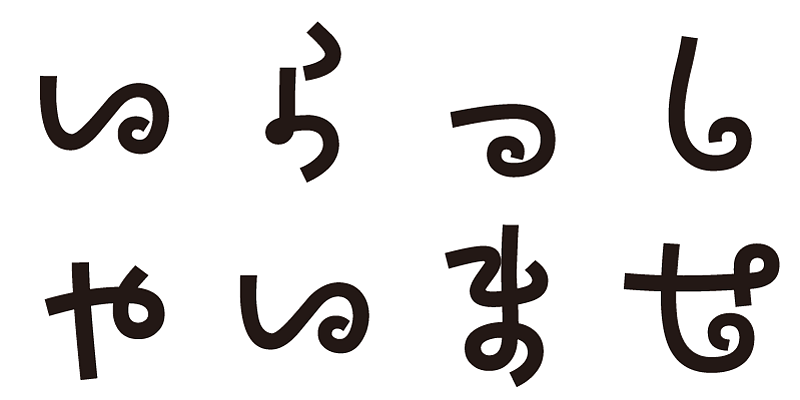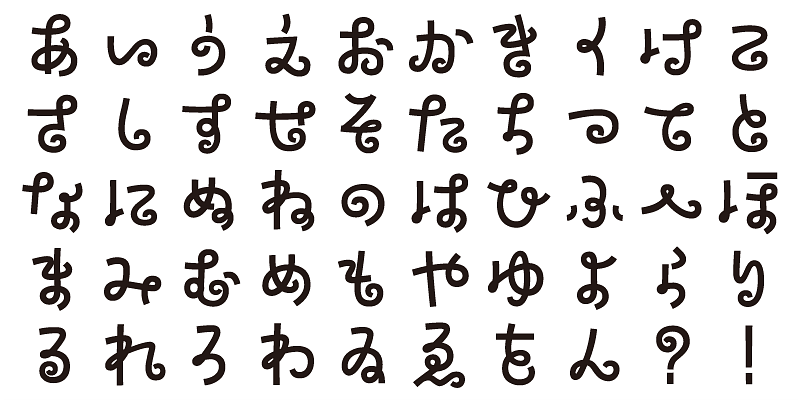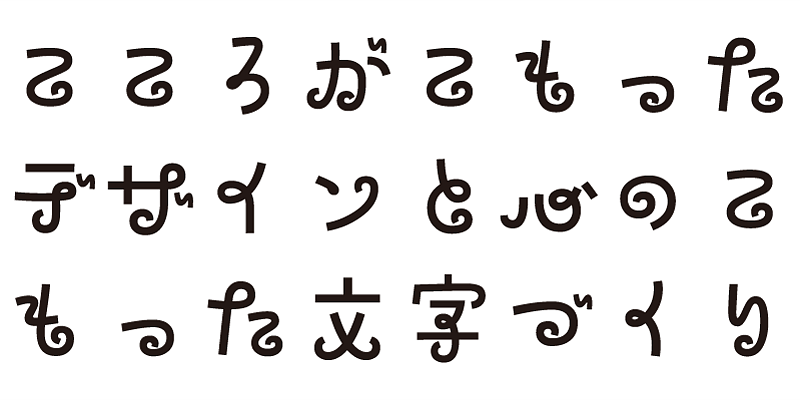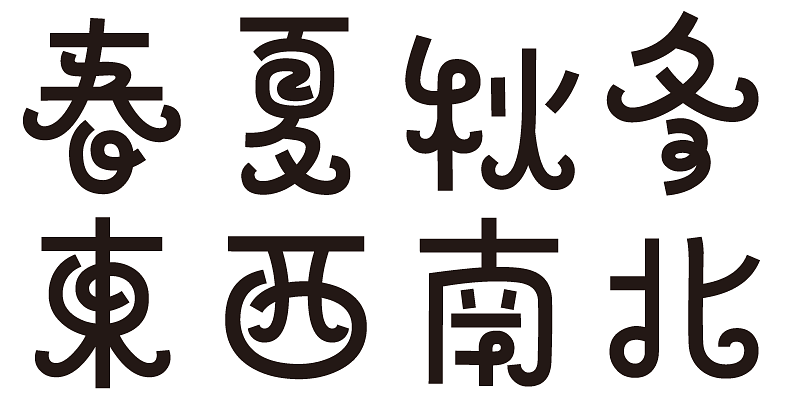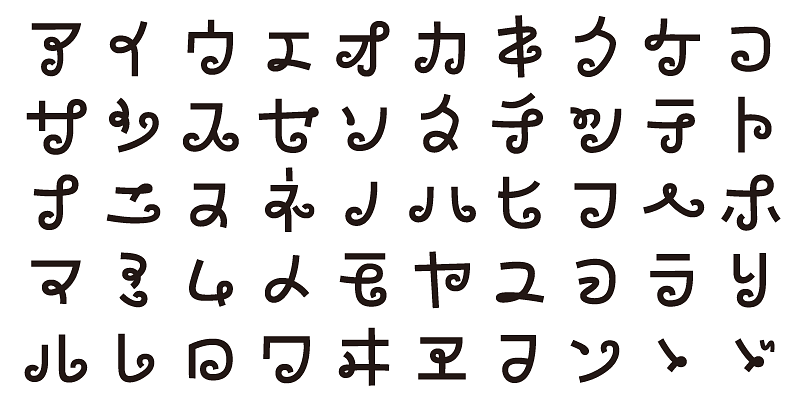
Spinning like a top, carefree as a child, turning like a pinwheel, flowing like an era; this typeface dances with energy and individuality.
This font includes top 1,000 kanji characters chosen from character frequency tables made by newspaper companies, publishing houses and linguistic research institutes, plus about 400 alphanumeric, kana characters and punctuation marks.
We design typefaces with the hope that they will add underlying meaning to words expressed. We wish the user to feel good and experience comfort and joy when using these typefaces.